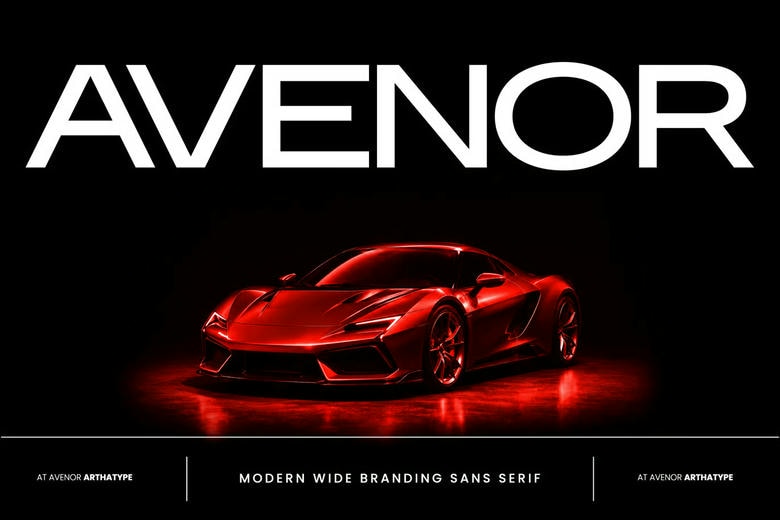
Avenor Font
Avenor is a wide, modern sans-serif font by Arthatype Studio. Its bold shape, clean lines, and open letters bring a fresh, modern feel to any design.
Avenor’s wide style helps headlines stand out and feel open. It works well for tech brands, automotive projects, modern identities, editorial layouts, and digital campaigns.
Avenor Sans Serif Font